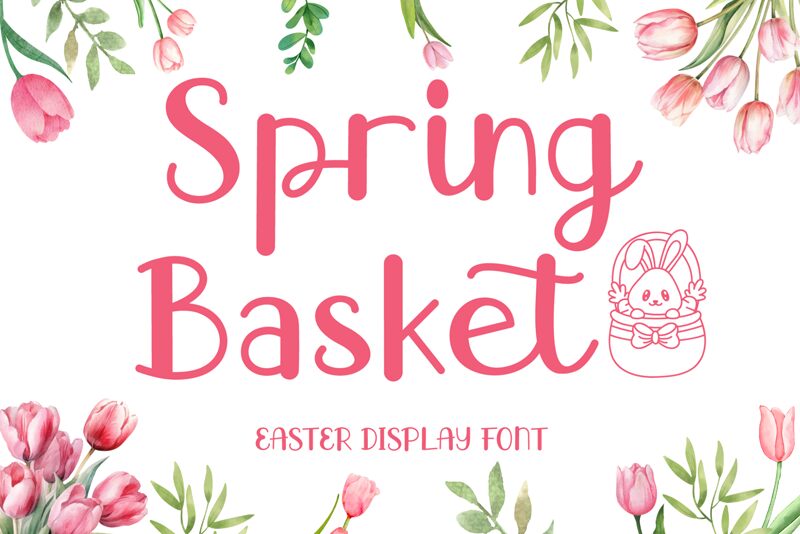
Spring Basket font by AEN Creative Studio is a free holiday font. It is fresh, whimsical, and inviting, with faint rounded and smooth letterforms. The font has a contemporary cheerful style with an informal, friendly vibe. Unlike standard fonts, Spring Basket brings out an exceptional quality that is unique to its style.
This typeface is a great choice for titles, body text, headings, signage, and packaging projects, especially if you’re looking for something that’s informal and friendly. Use it for printed and digital projects such as holiday cards, posters, banners, stickers, and other related graphics.